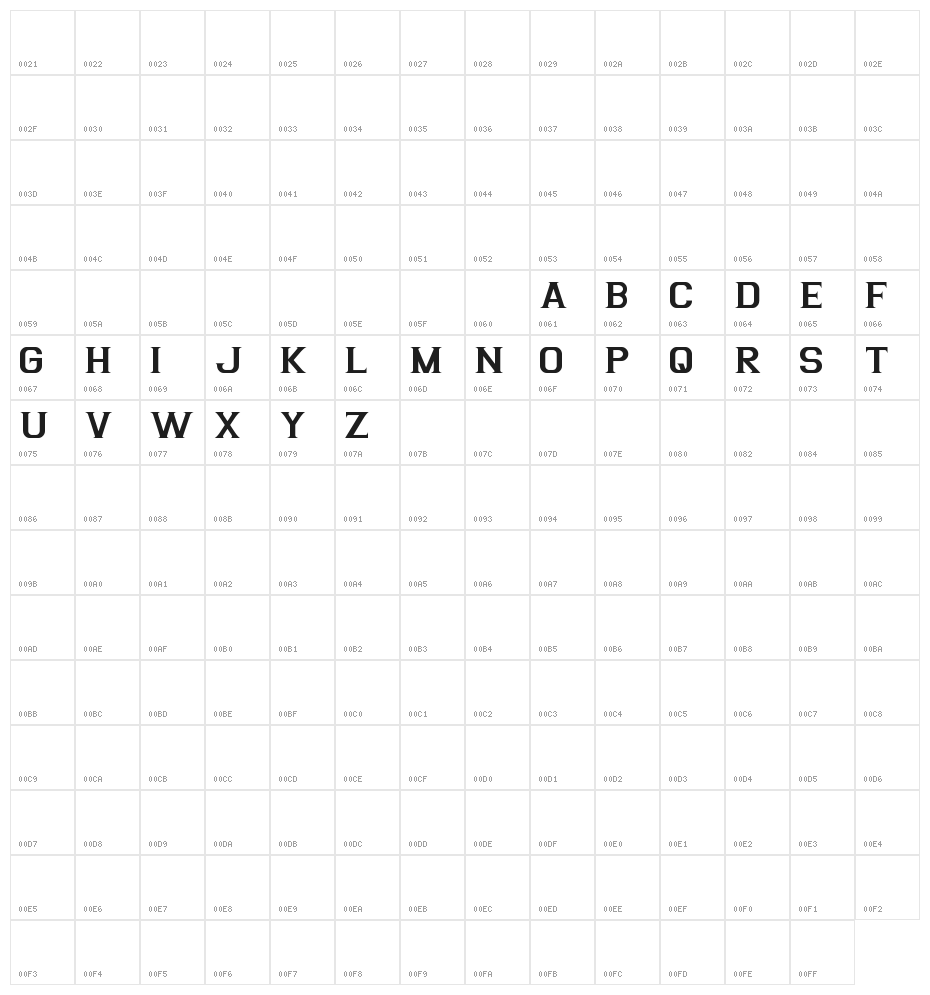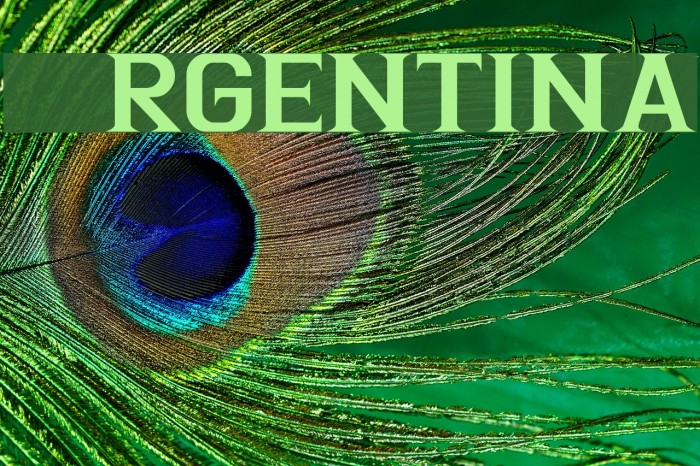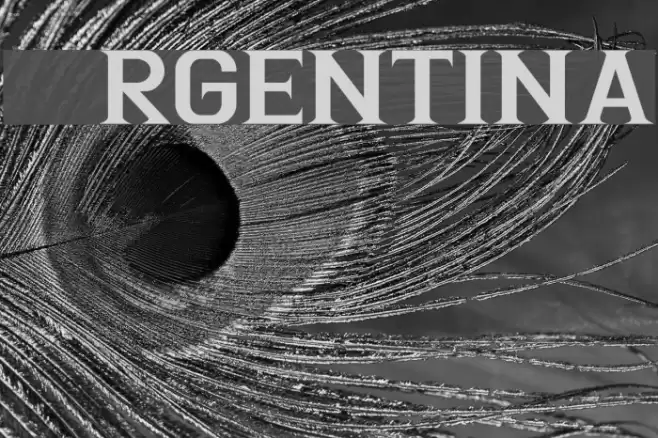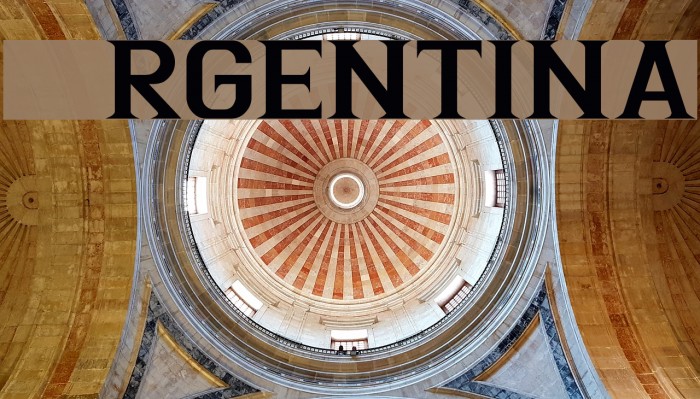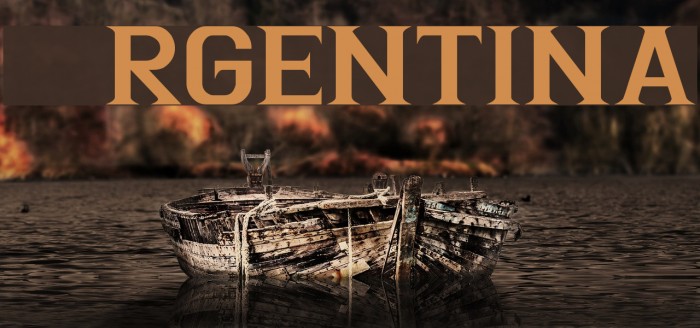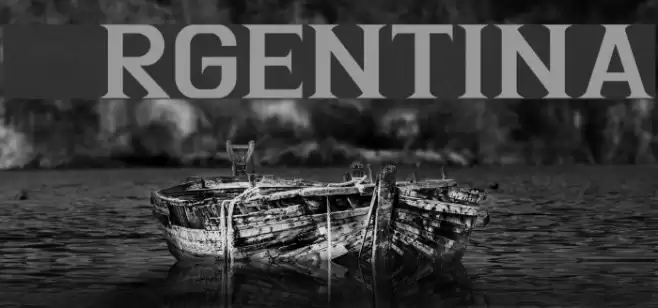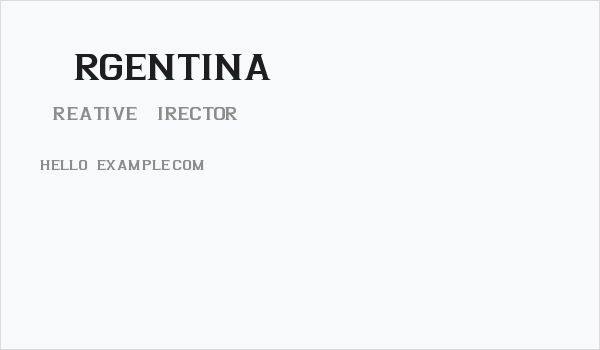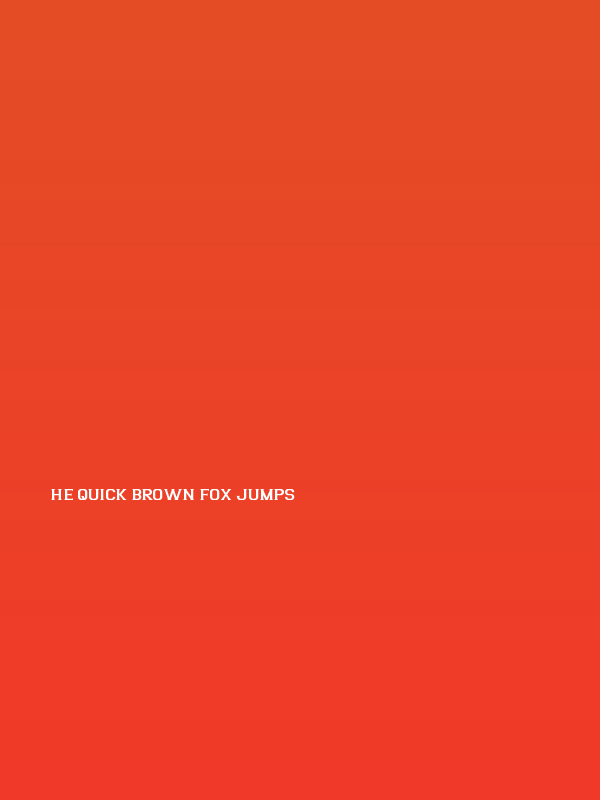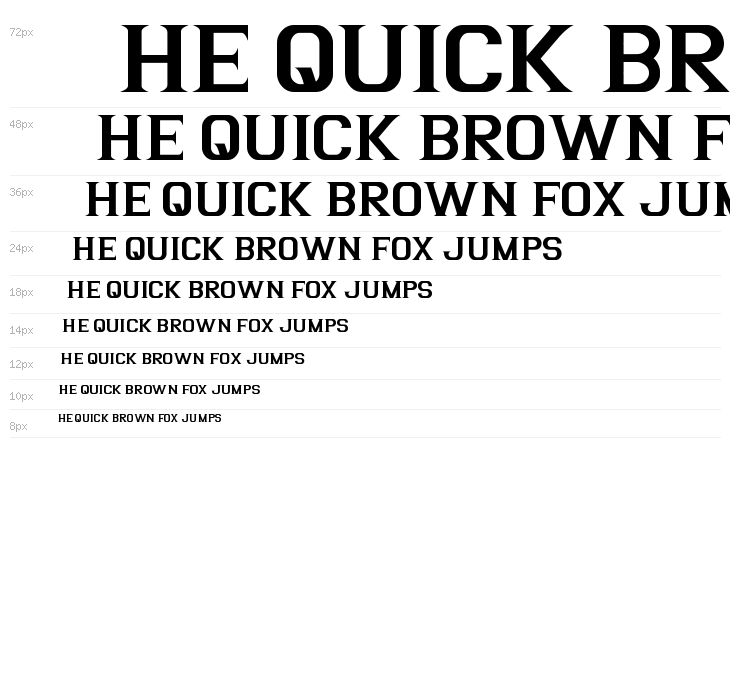
Argentina Font
Argentina Description
This font features a bold and commanding presence with its strong, angular serifs and uniform stroke width. The characters are well-defined and exhibit a classic yet modern appeal, making them suitable for impactful designs. The uppercase letters are particularly striking, with a consistent height and width that ensure readability and visual balance. The overall design is reminiscent of traditional serif fonts but with a contemporary twist, offering versatility for various design applications.